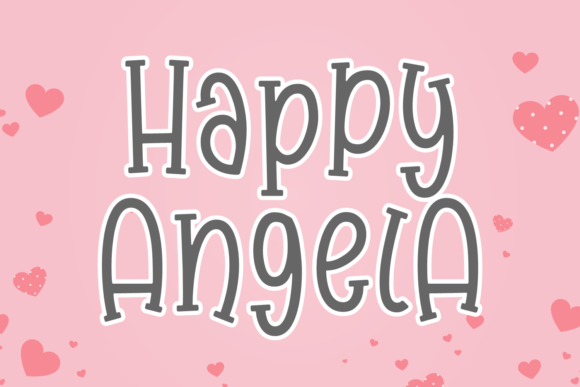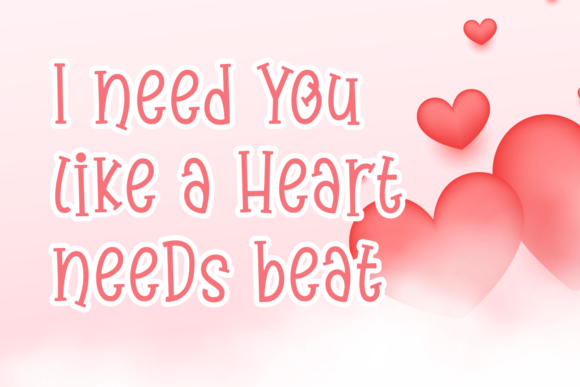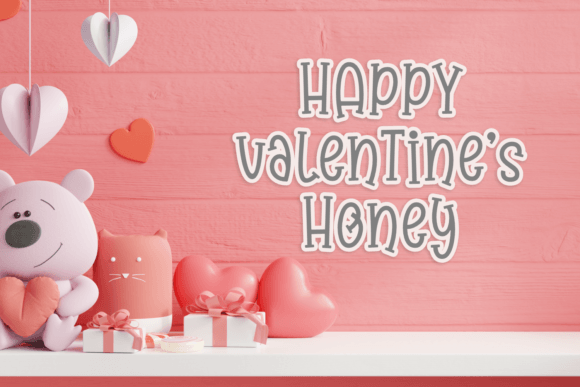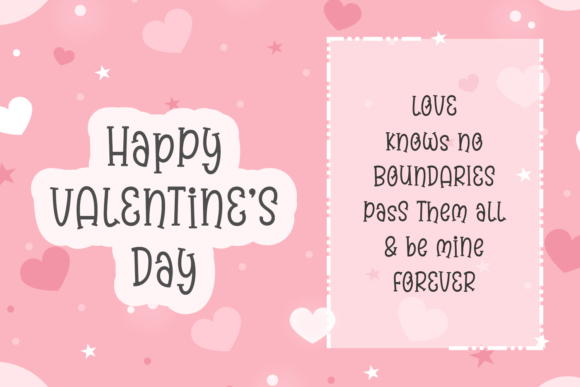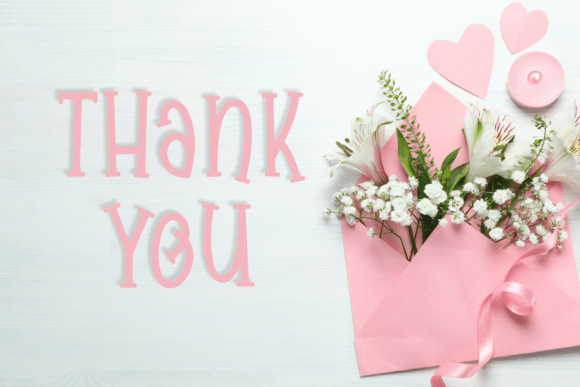
Happy Angela Font is a delightful, charming serif font that embodies the spirit of playfulness and friendliness. Whether you’re working on a children’s book, a brand identity, or a social media campaign, this font has everything you need to express your ideas with flair. With its versatility and charm, Happy Angela Font is an invaluable addition to any designer’s library.
Key Features of Happy Angela Font
- Font Family: Happy Angela, a unique and playful sans-serif font
- Size: The font family includes a range of sizes, from 8pt to 72pt, suitable for various applications
- Resolution: Optimized for high-resolution displays, with clear and crisp rendering at resolutions up to 300 DPI
- Unique Characteristics: The font features a distinctive rounded shape, with rounded edges and a friendly feel, making it ideal for children’s books, educational materials, and other applications where a playful tone is desired
Happy Angela Font Review
Overall, I’d say the Happy Angela Font is a unique and playful addition to any design project. ✨ It has a fun, whimsical feel that’s perfect for creating a cheerful atmosphere. The font’s rounded edges and bubbly texture give it a childlike charm that’s hard to resist.
- The font’s versatility: it works well in both digital and print formats.
- The wide range of font sizes and styles available.
- The ability to customize the font’s color and texture to fit your design needs.
- ⚠️ The font may not be suitable for formal or professional designs, as it can come across as too playful or immature.
- ⚠️ The font’s texture can be distracting in large quantities or when used in small sizes.
While the Happy Angela Font has some limitations, its unique charm and versatility make it a great addition to any designer’s toolkit. With a little creativity and restraint, it can add a fun and playful touch to even the most mundane designs.
The Happy Angela Font is ideal for creating playful, whimsical designs for children’s products, party invitations, and social media graphics.
Tips for Getting the Most Out of the Happy Angela Font
Experiment with different font sizes and styles to achieve a unique look.
Use the Happy Angela Font in combination with other playful fonts for a cohesive design.
Adjust the font color to match your brand’s color scheme.
Alternatives to Happy Angela Font
The Great Vibes Font is a modern, elegant script font that is perfect for creating a sophisticated and stylish design. It is ideal for use in invitations, greeting cards, and other promotional materials where a touch of elegance is required. Great Vibes Font is similar to Happy Angela Font in its flowing and cursive nature, but it has a more refined and polished look.
The Alex Brush Font is a beautiful, handwritten font that is great for creating a personal and intimate design. It is perfect for use in wedding invitations, birthday cards, and other special occasion materials where a touch of warmth and personality is required. Alex Brush Font is similar to Happy Angela Font in its flowing and cursive nature, but it has a more casual and relaxed look.
The Carolyna Pro Font is a modern, elegant script font that is perfect for creating a stylish and sophisticated design. It is ideal for use in business cards, letterheads, and other promotional materials where a touch of professionalism is required. Carolyna Pro Font is similar to Happy Angela Font in its flowing and cursive nature, but it has a more refined and polished look, with a wider range of font weights and styles.
Q: What is the recommended font size for optimal readability with the Happy Angela Font?
The recommended font size for optimal readability with the Happy Angela Font is between 12pt and 18pt. However, this may vary depending on the specific use case and display device.
Q: Does the Happy Angela Font support Unicode characters?
Yes, the Happy Angela Font supports a wide range of Unicode characters, including Latin, Cyrillic, and Greek alphabets. This ensures the font can be used in a variety of languages and applications.